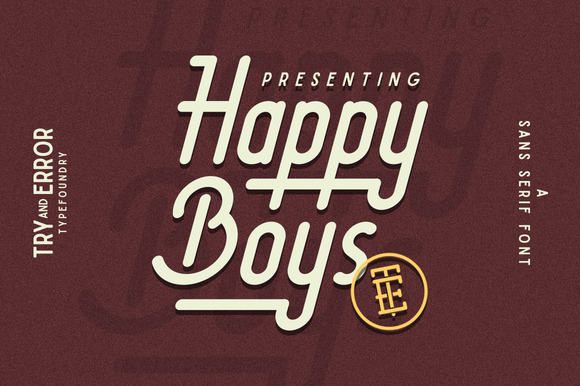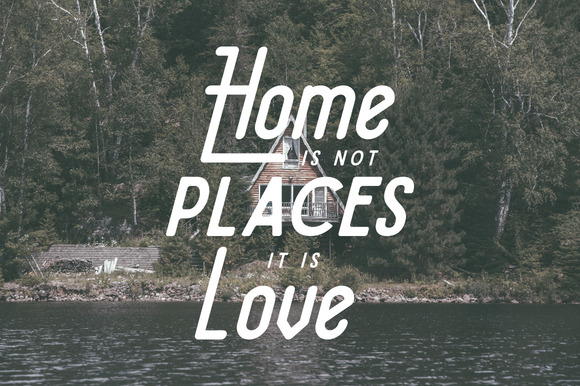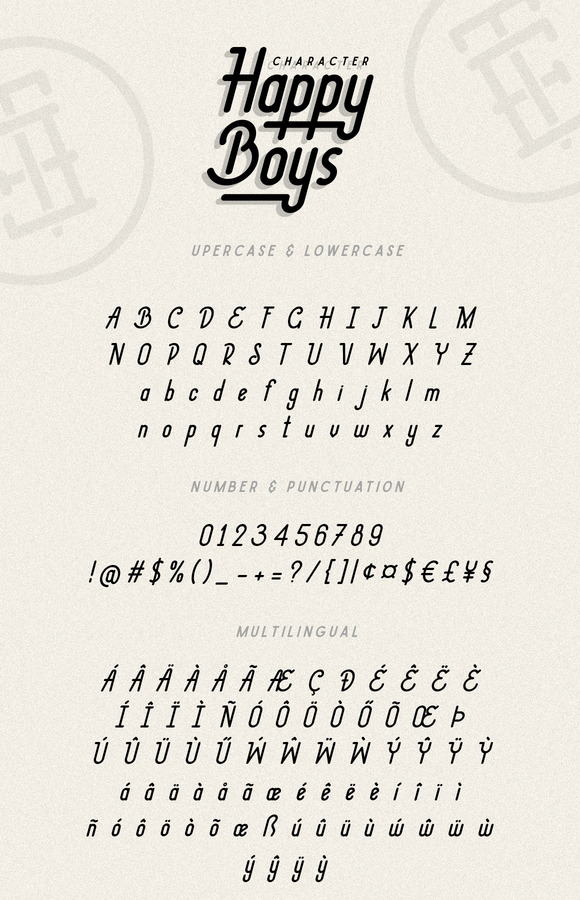
Happy Boys Font
Happy Boys is a clean and clear sans serif typeface. Happy Boys perfect for branding, labeling, vintage designing, and more. It includes uppercase standard character